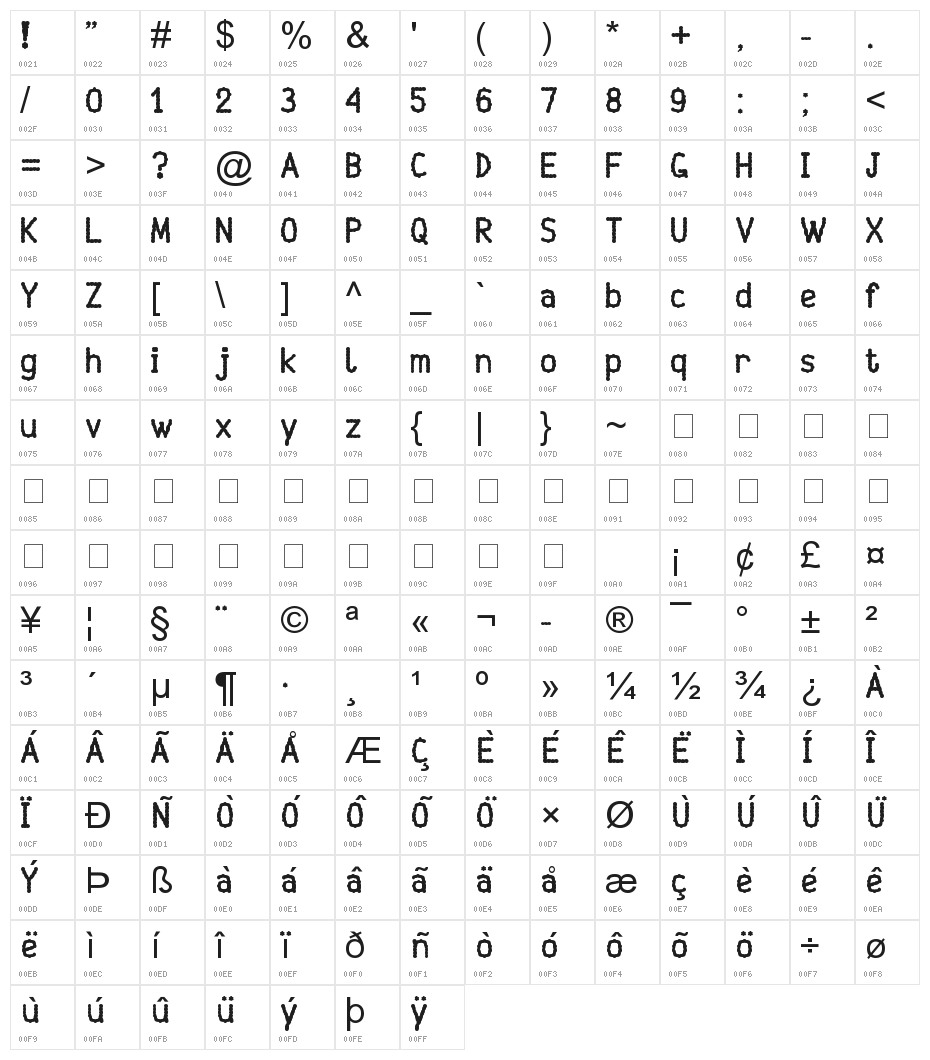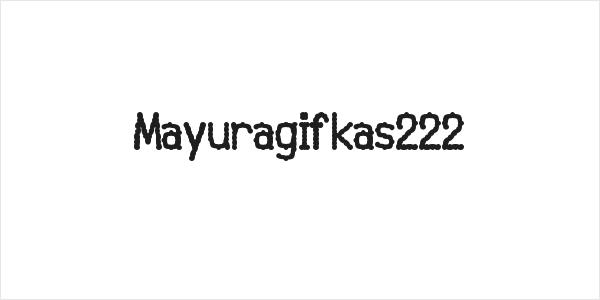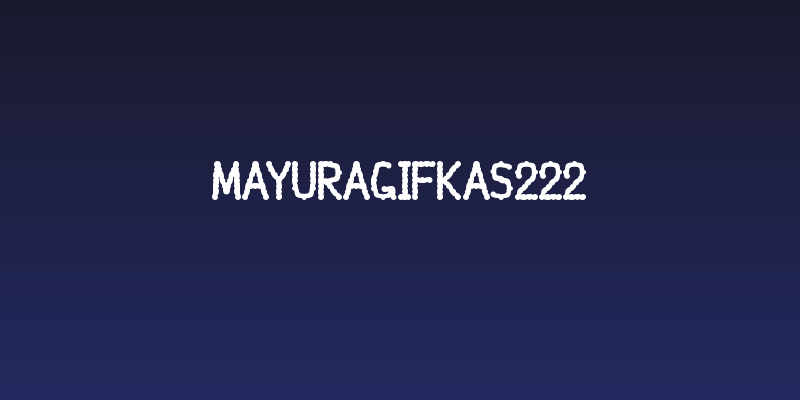
Mayuragifkas222 Font
Mayuragifkas222 Description
This font features a playful and unique design, characterized by its bubble-like, rounded edges that give it a whimsical and informal appearance. The letters are bold and have a consistent thickness throughout, creating a uniform look. The uppercase and lowercase letters maintain a similar style, with the lowercase letters slightly smaller in size. Numbers and special characters are also included, following the same bubbly aesthetic. This font is ideal for projects that require a fun and engaging visual element, such as children's books, party invitations, or playful branding materials.
| Proposed Projects | Ideal for children's books, party invitations, playful branding, and creative posters. |